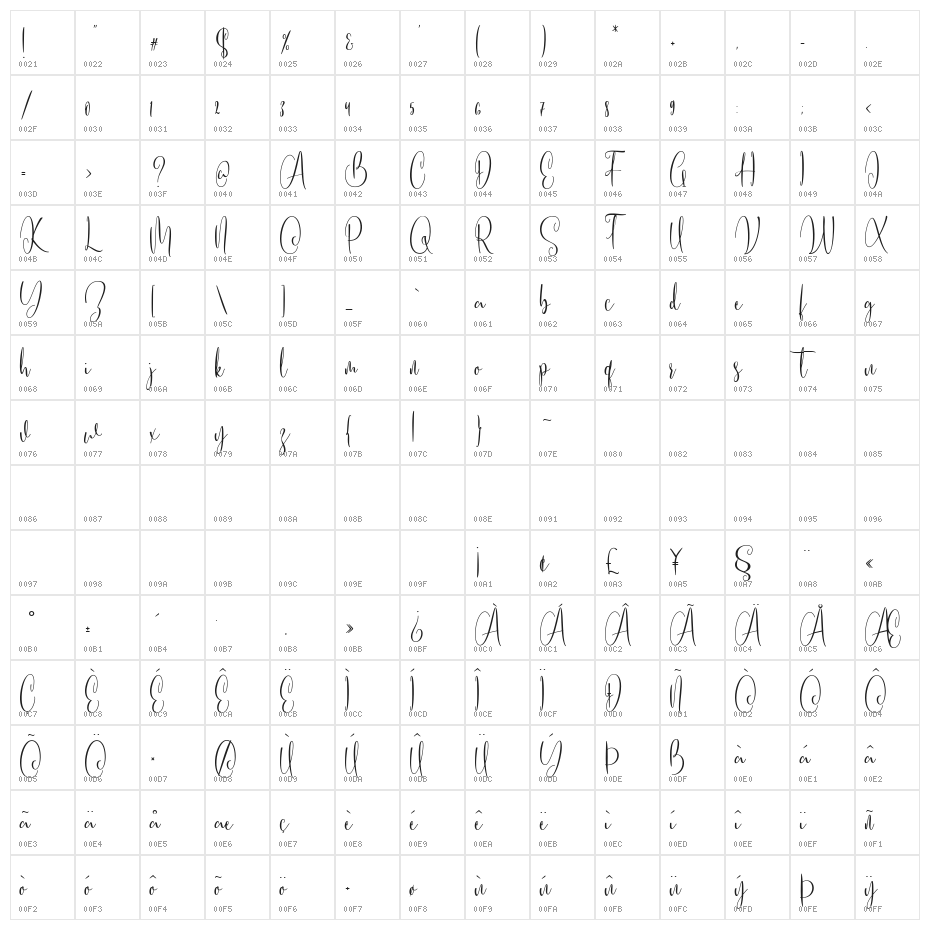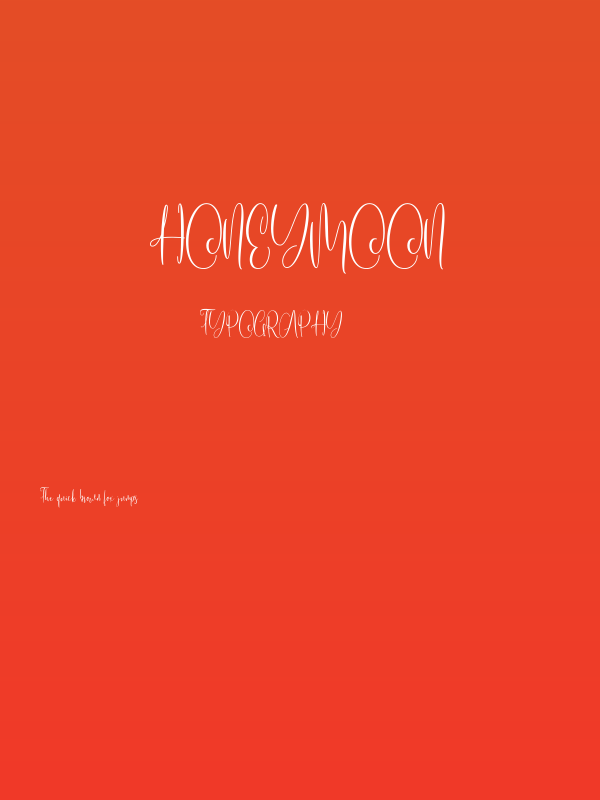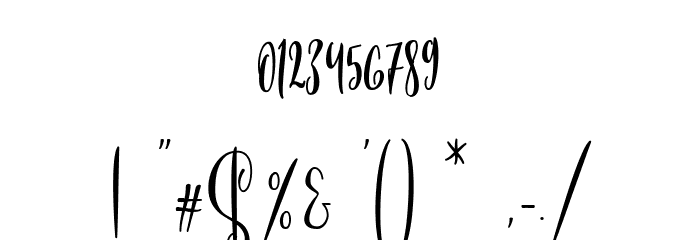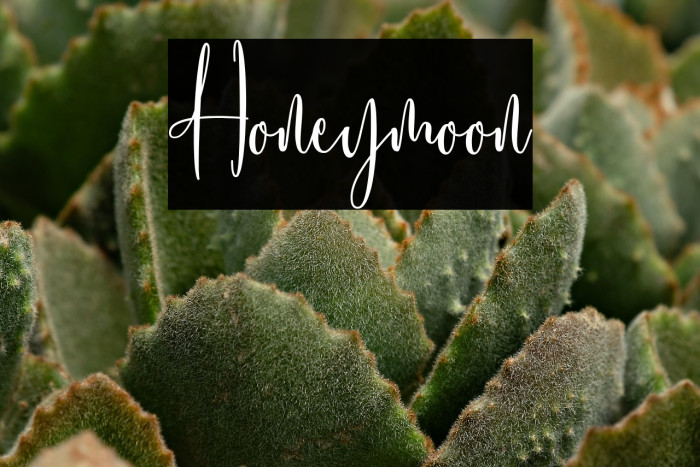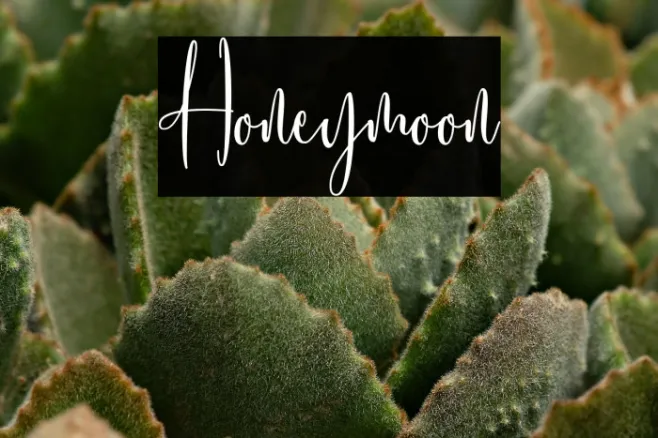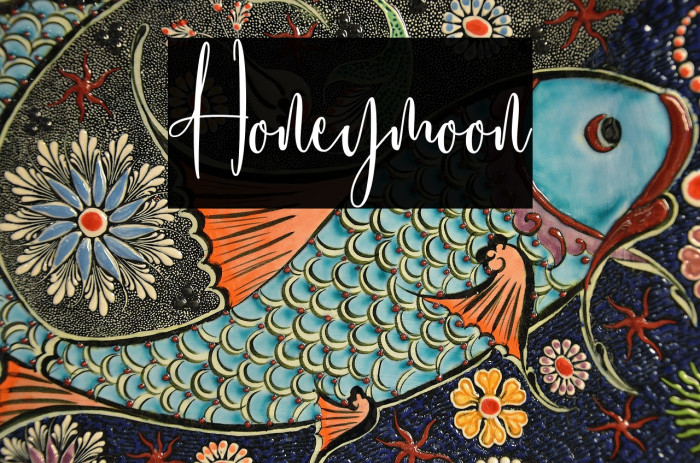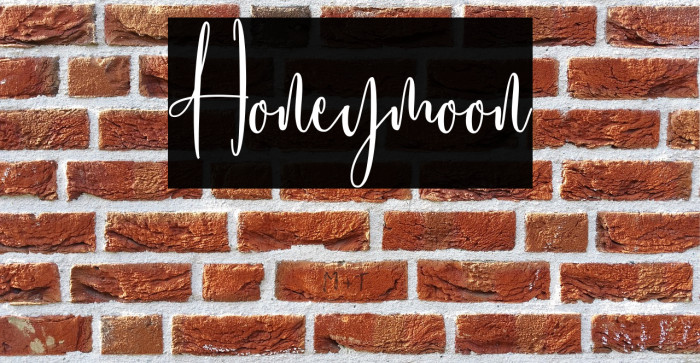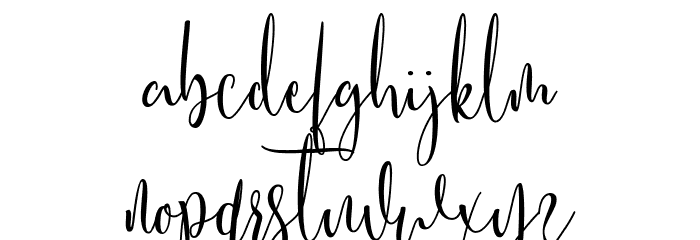
Honeymoon Font
Honeymoon Description
This font features an elegant, flowing script style with a whimsical and romantic flair. The uppercase letters are characterized by tall, slender forms with exaggerated loops and swirls, giving them a sophisticated yet playful appearance. The lowercase letters maintain a consistent flow, with some characters extending below the baseline, adding to the font's graceful aesthetic. The numerals are designed to complement the letters, with a similar curvaceous style. Special characters are also included, maintaining the same decorative and fluid design. This font is perfect for creating a sense of elegance and charm.
| Use Case | Logos, Invitations, Decorative Text |
| Proposed Projects | Ideal for wedding invitations, greeting cards, branding, and romantic-themed designs. |